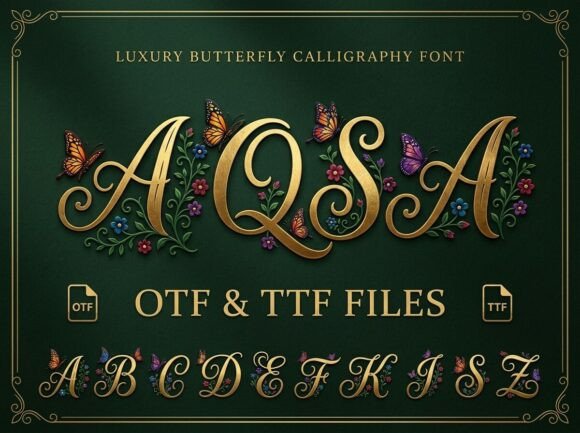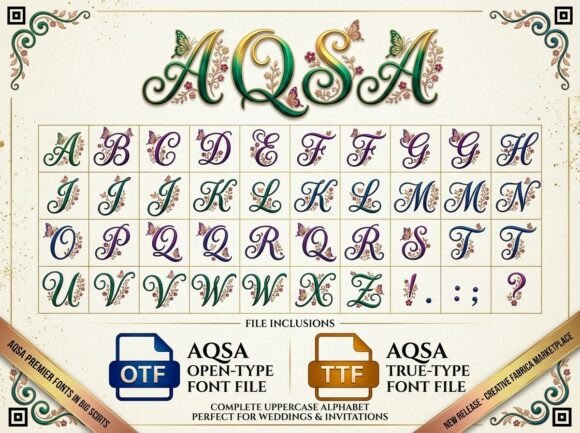
Celebrate Nature’s Beauty with Aqsa: A Premium Floral Calligraphy Font
Are you looking for a font that captures the essence of nature’s vibrant beauty? Look no further than Aqsa, a stunning floral calligraphy font that brings a touch of whimsy and elegance to every word. This exquisite typeface is adorned with blooming wildflowers and fluttering butterflies, making it the perfect choice for designers and crafters who want to add a garden-fresh feel to their creative projects.
The Perfect Harmony of Delicate Line Work and Botanical Details
Aqsa’s unique charm lies in its perfect harmony of delicate line work and lush botanical details. The font features elegant, flowing script that is intricately woven with blooming wildflowers and fluttering butterflies. The result is a beautiful, eye-catching typeface that is sure to capture the attention of your audience. Whether you’re designing wedding invitations, beauty branding materials, or greeting cards, Aqsa is the ideal choice for adding a touch of nature’s beauty to your work.
Ideal for Spring-Themed Weddings and Beauty Branding
Aqsa is particularly well-suited for spring-themed weddings, beauty branding, and greeting card designs. The font’s floral and whimsical feel evokes the freshness and beauty of spring, making it perfect for wedding invitations, save-the-date cards, and other wedding-related materials. Additionally, Aqsa’s elegant and sophisticated feel makes it an excellent choice for beauty branding, skincare packaging, and other luxury products.
High-Definition Details for a Professional Finish
One of the standout features of Aqsa is its high-definition level of detail. The font is carefully crafted to ensure that every line, curve, and botanical detail is crisp and clear, even at small sizes. This makes Aqsa an excellent choice for designers and crafters who want to produce high-quality materials that will stand out from the crowd.
Adding a Whimsical Touch to Your Creative Projects
Aqsa is more than just a font – it’s a way to add a whimsical touch to your creative projects. The font’s playful, garden-fresh feel is sure to delight your audience and leave a lasting impression. Whether you’re designing for print or digital, Aqsa is the perfect choice for adding a touch of personality and charm to your work.
Key Features of Aqsa Font
- Premium floral calligraphy font
- Elegant, flowing script adorned with blooming wildflowers and fluttering butterflies
- Perfect harmony of delicate line work and lush botanical details
- Ideal for spring-themed weddings, beauty branding, and greeting card designs
- High-definition level of detail for a professional finish
- Whimsical, garden-fresh feel that’s sure to delight your audience
Get Ready to Elevate Your Designs with Aqsa
If you’re looking for a font that will elevate your designs and add a touch of nature’s beauty to your work, look no further than Aqsa. With its unique blend of elegance, whimsy, and high-definition detail, Aqsa is the perfect choice for designers and crafters who want to produce high-quality materials that will stand out from the crowd. So why wait? Get Aqsa today and start celebrating the vibrant beauty of nature in your designs!